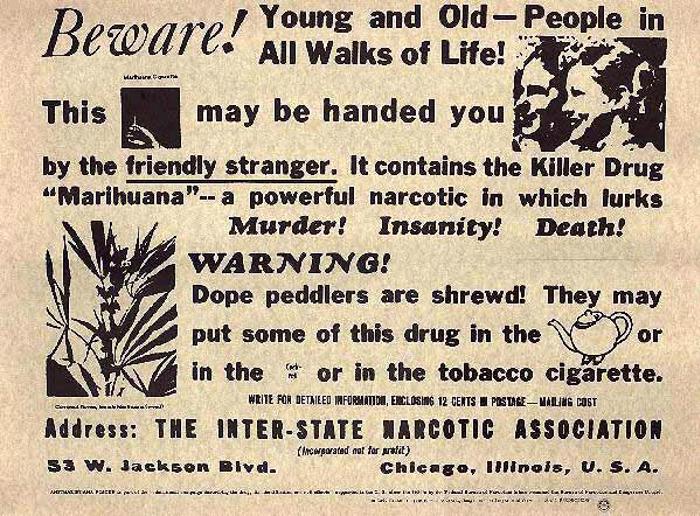
Bewarethefriendlystranger Font
Set left and right margins at 0.1 inches if using the 72 point size in a word document. This is possibly the largest single glyph ever produced in a true type font. I made some great T-shirts from the font bitmap. This font may be incompatible with Windows Vista. Use lower case a for the glyph in both the Norml and Landscape versions.